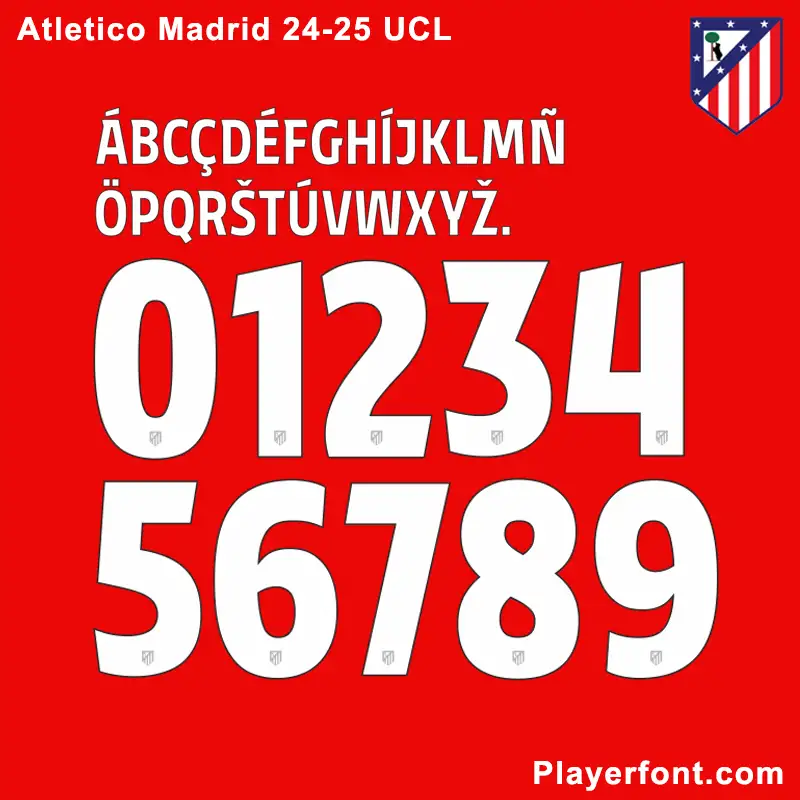
Experience the Red & White Spirit: Atletico Madrid 24-25 Font
Atletico Madrid UCL 24-25 Font
Atletico Madrid 24-25 Font.
Celebrate the return of the legendary crest with the official-style Atletico Madrid 24-25 Font. This season’s typography is designed to complement the bold stripes of the “Colchoneros,” featuring a sleek, sharp structure that embodies the grit and passion of the Atleti family.
• 2024-2025 Authentic Design: Meticulously recreated to match the on-pitch namesets worn by stars like Antoine Griezmann and Julián Alvarez.
• Integrated Club Identity: Each number is optimized to include the newly restored classic Atletico Madrid crest at the base for 100% authenticity.
• Complete Character Map: Includes uppercase A-Z, numbers 0-9, and essential special characters for player names.